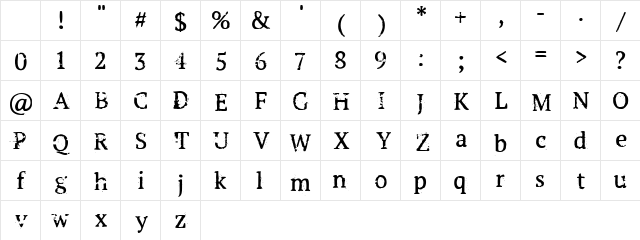
Creepshow carries an unsettling edge - its distorted letterforms are built to unsettle, perfectly suited to horror, Halloween, and dark creative work.
Font Pairing: Pair with a clean neutral sans-serif for body copy to let Creepshow's character lead without overwhelming the composition.
Pro Tip: Use Creepshow at larger display sizes for maximum impact. Consider generous tracking to let the disturbing character of each letterform breathe.